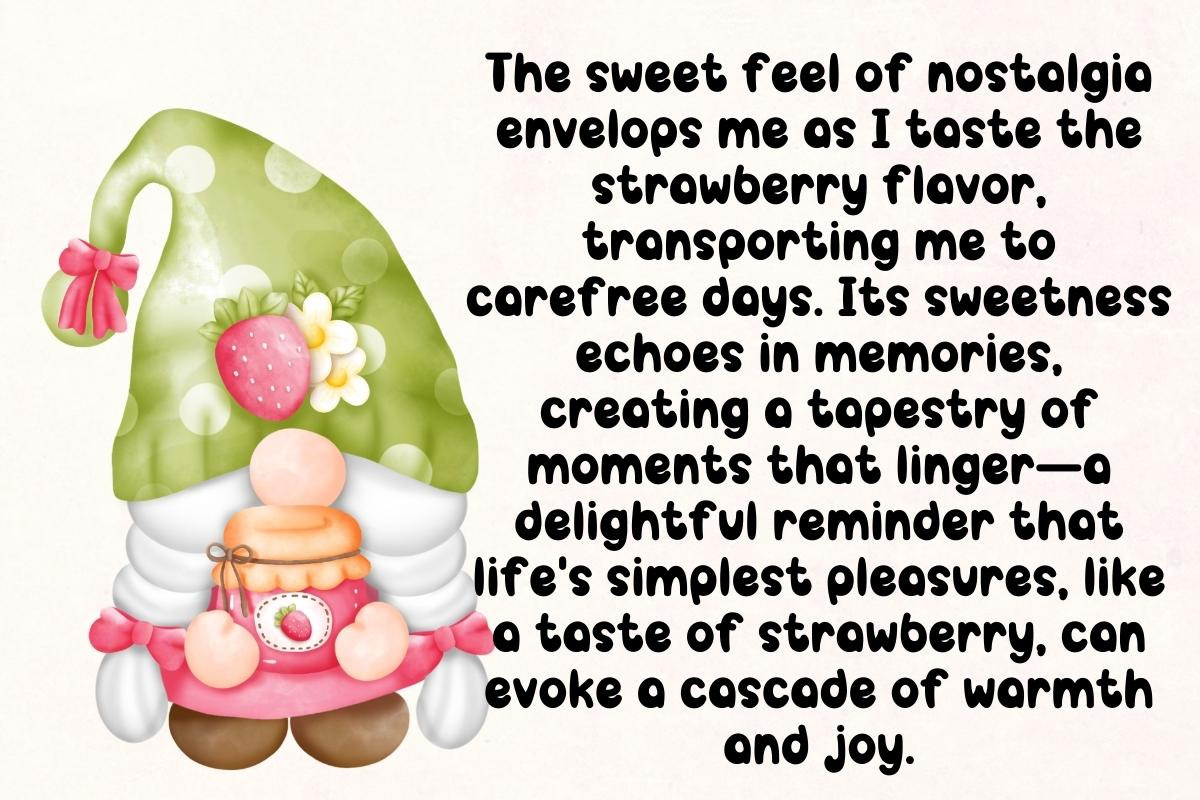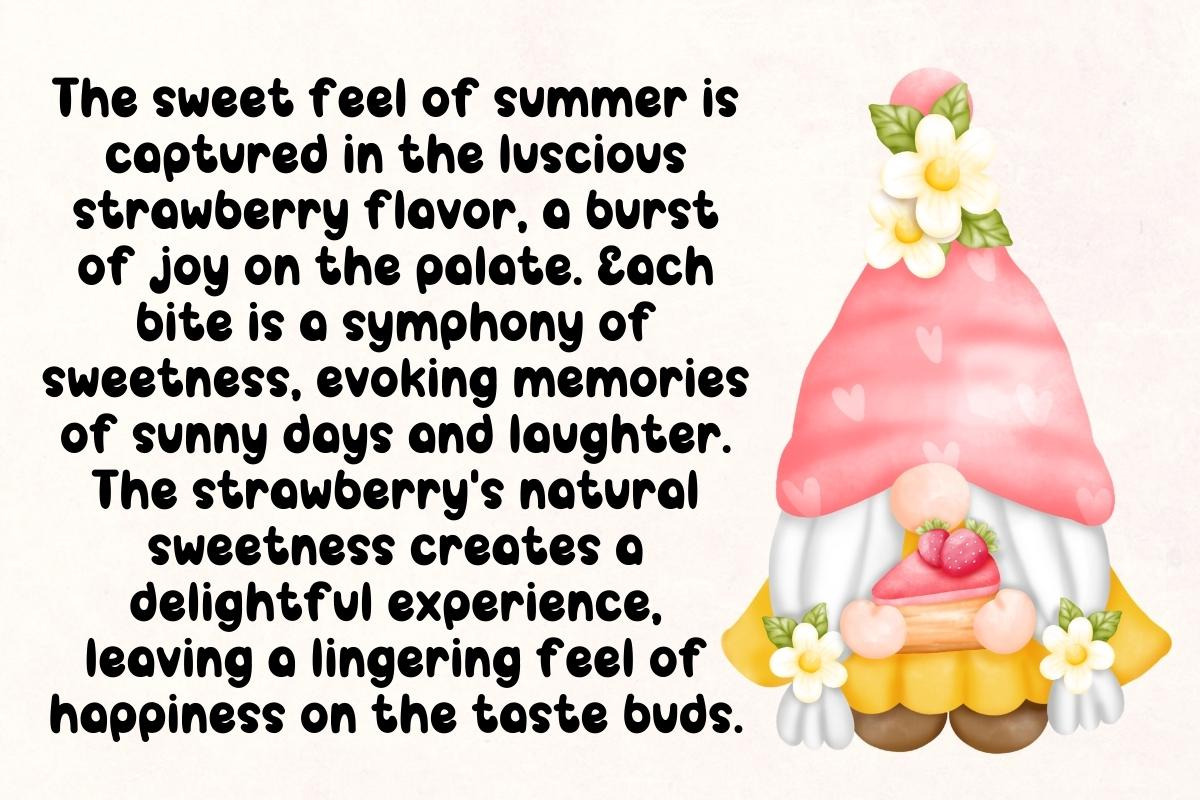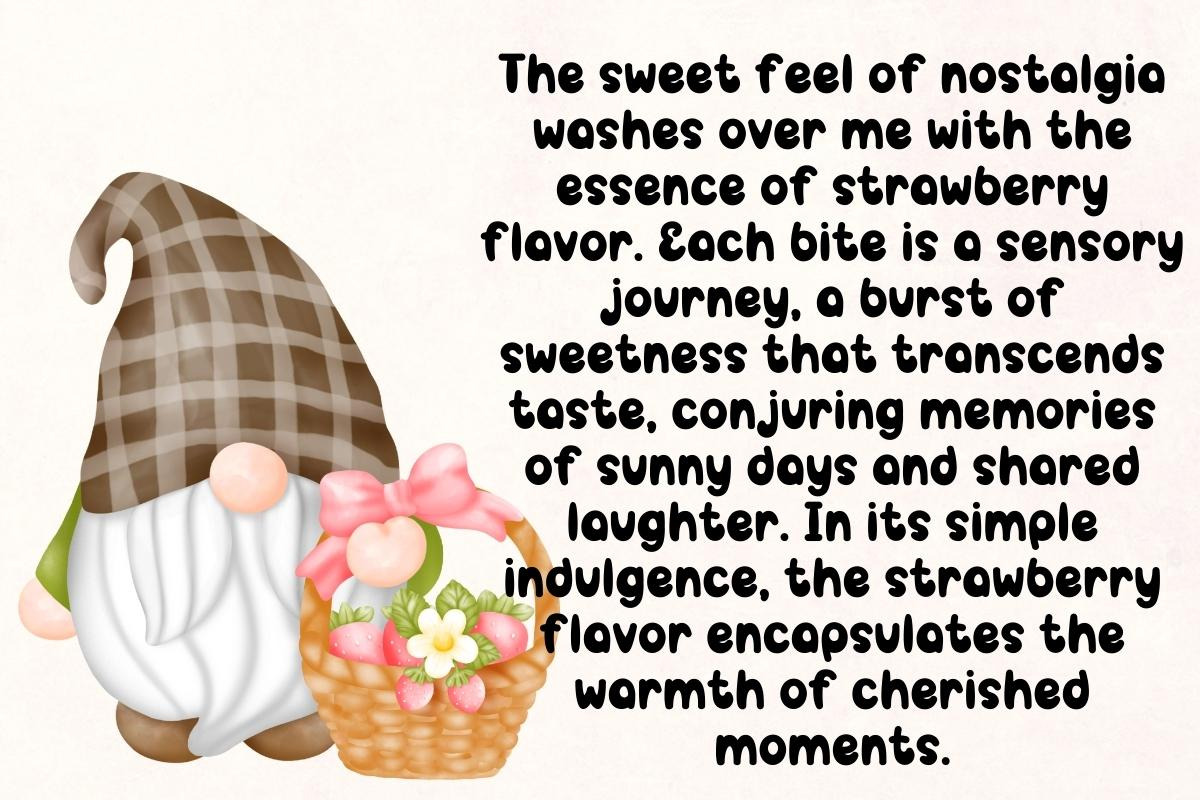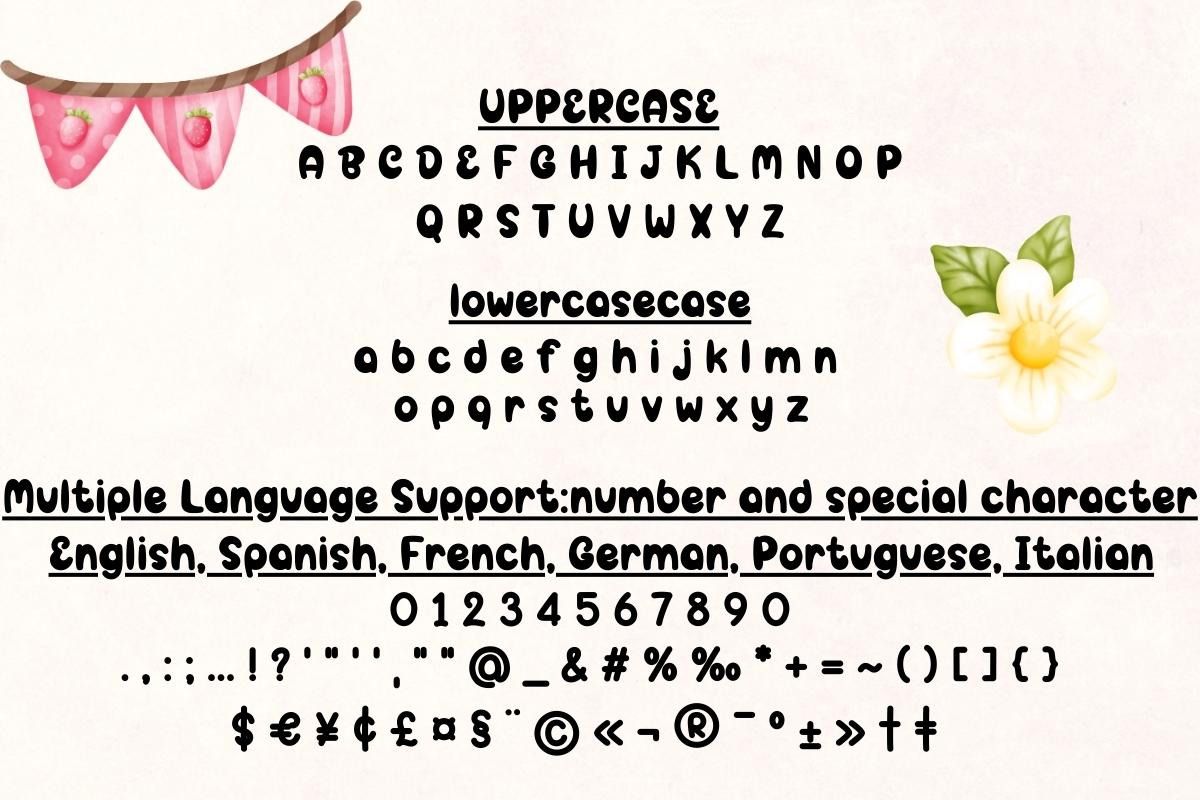
Strawberry Flavor - Handwritting
Indulge your text in the sweet charm of "Strawberry Flavor" – a font that sprinkles whimsy and delight across every letter. Let your words dance with a berrylicious touch, as this font adds a dash of sweetness to your messages. Unleash the playful magic and make your text as sweet as strawberries! 🍓✨